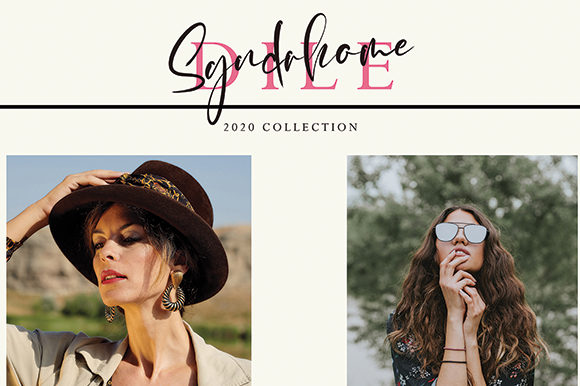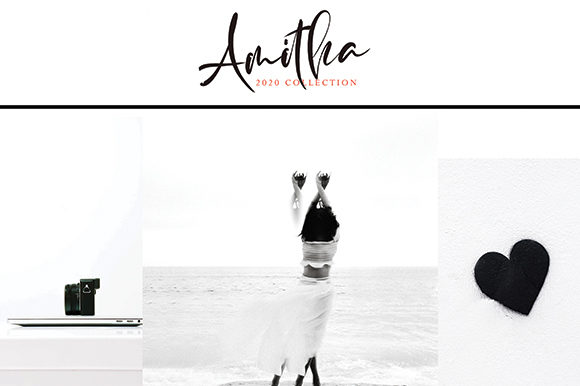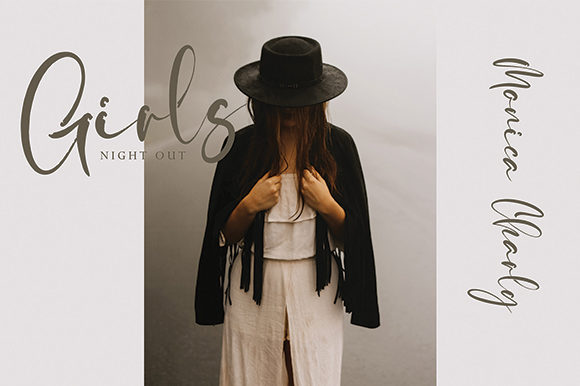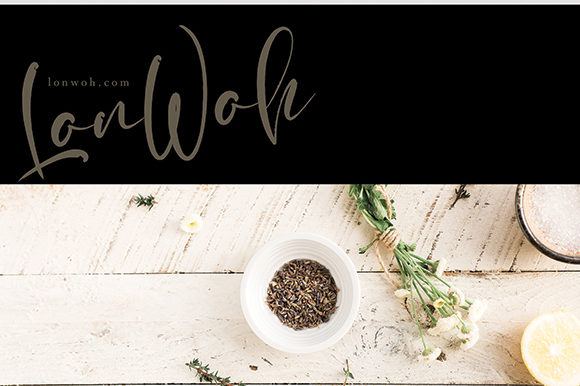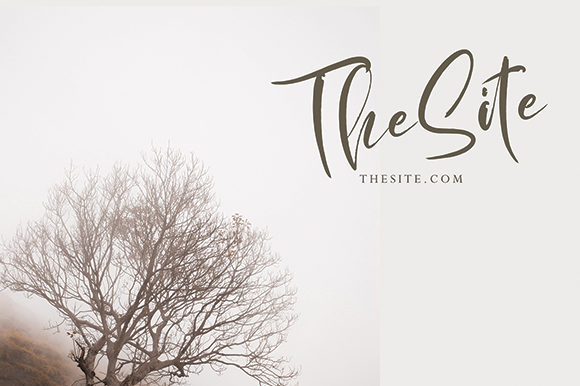
Introduction to Pastoba Font
You know that feeling when you’re working on a creative project and you just can’t seem to find the right font to bring your idea to life? That’s exactly what happened to me when I stumbled upon the Pastoba Font. It was like a breath of fresh air – a gorgeous and light script font that instantly elevated my design and made me excited to share it with the world.
| 📌 Product Name | Pastoba Font |
| 👤 Author | Pineungtype & Missinklab |
As a designer, I know how valuable it is to have a reliable design resource like the Pastoba Font in your toolkit. With its modern style and high quality, it’s the perfect addition to any creative project. And the best part? It’s completely free to download and comes with a transparent background, making it easy to integrate into any design.
Whether you’re working on a branding project, a social media campaign, or just a personal design experiment, the Pastoba Font is sure to turn your ideas into a true standout. So why settle for an ordinary font when you can make a statement with the Pastoba Font?
Key Features of Pastoba Font
- High-quality, unique font design for creative projects, ideal for designers looking for a distinctive style.
- Features a transparent background, allowing for seamless integration with other design elements.
- Designed to be highly legible, making it perfect for use in a variety of creative projects, from logos to typography-based designs.
- Includes a comprehensive character set, including uppercase and lowercase letters, numbers, and special characters.
Honest Review: Pastoba Font
As a designer, I’m always on the lookout for high-quality design resources to elevate my creative projects. The Pastoba Font has caught my attention, and I’m excited to share my honest review.
- ✨ The font is sleek and modern, perfect for a variety of design projects, from digital to print.
- ✨ The font is available with a transparent background, which is a nice touch for designers who need flexibility.
- ✨ The quality of the font is top-notch, with clear and crisp typography.
- ⚠️ The font is not as extensive as some other fonts in the market, with a limited character set.
- ⚠️ The font may not be suitable for projects that require a lot of customization, as it’s more geared towards general use.
Overall, I’m impressed with the Pastoba Font, and I would definitely recommend it to designers looking for a high-quality, free design resource. It’s perfect for a variety of creative projects, and the transparent background option is a nice bonus.
Tips for Getting the Most Out of Pastoba Font
To get the most out of the Pastoba Font, experiment with different font sizes, styles, and colors. You can also use the font in combination with other design elements to create a unique and eye-catching design.
Common Use Cases for Pastoba Font
The Pastoba Font is suitable for a variety of creative projects, including graphic design, digital art, and typography. Its high-quality design and transparent background feature make it an ideal choice for designers and artists.
Is the Pastoba Font suitable for high-resolution printing?
Yes, the Pastoba Font is designed to be high-quality and suitable for high-resolution printing. The font’s transparent background and crisp typography ensure that it will look great in print, whether you’re working on a business card, brochure, or other creative project.